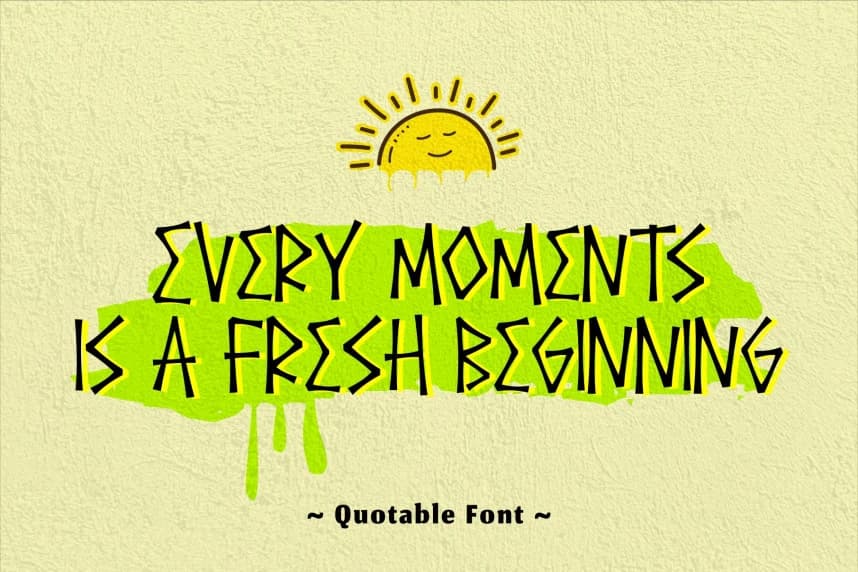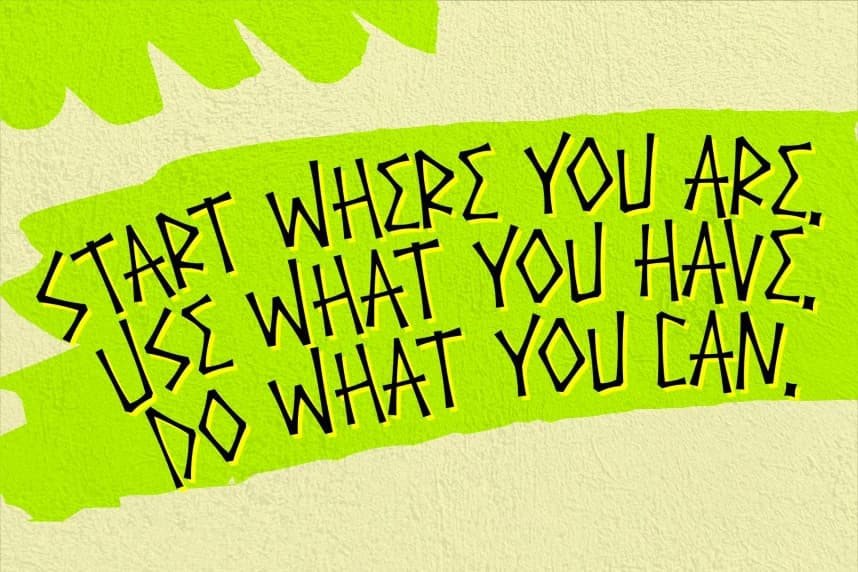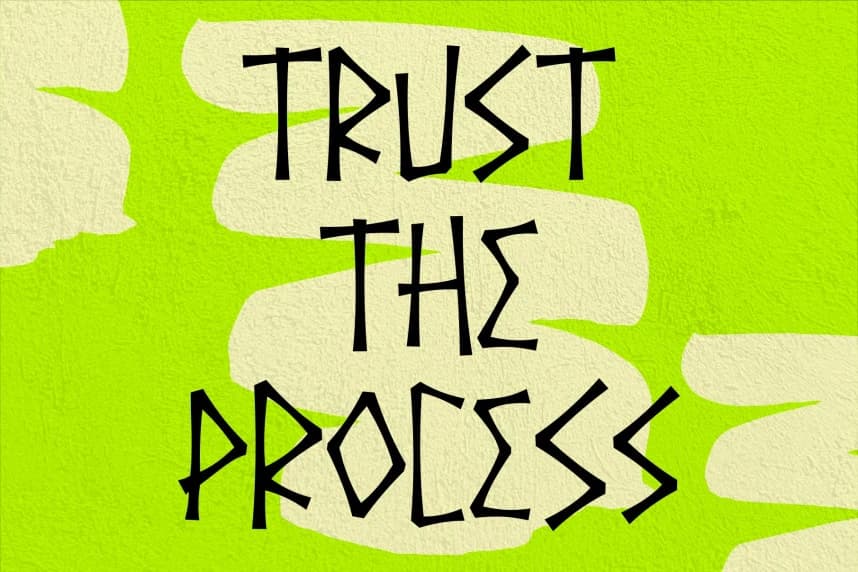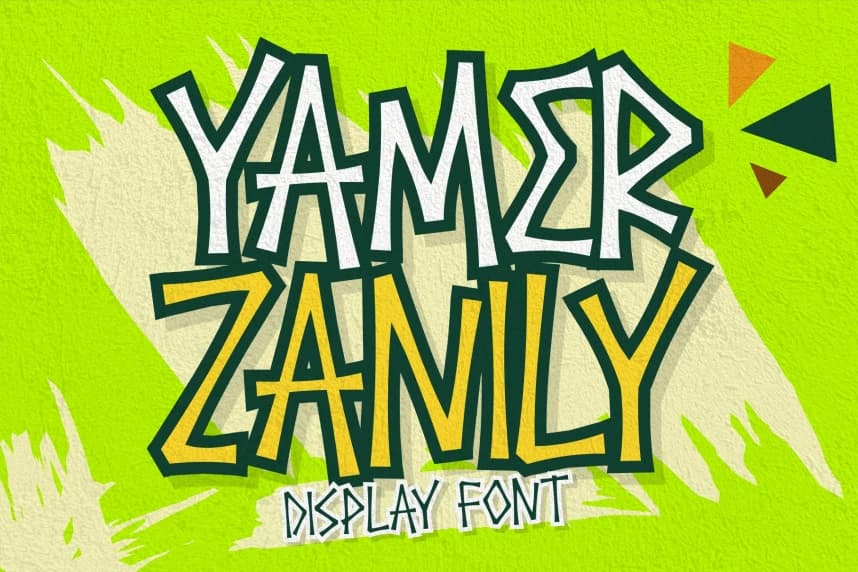
Yamer Zanily Font
Yamer Zanily Font is a display font that exudes a cheerful yet spooky feel, making it suitable for a variety of themes, from children's shows to horror motifs. The shapes of the characters are varied, with intricate details that bring them to life, full of personality.